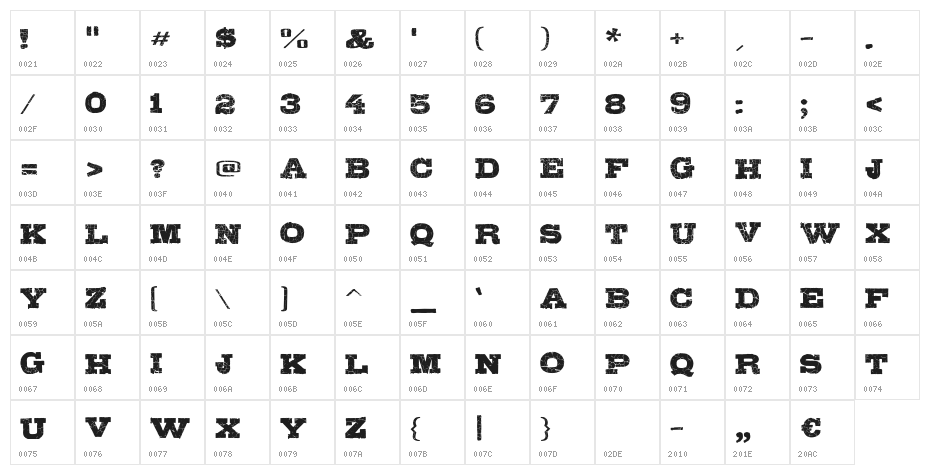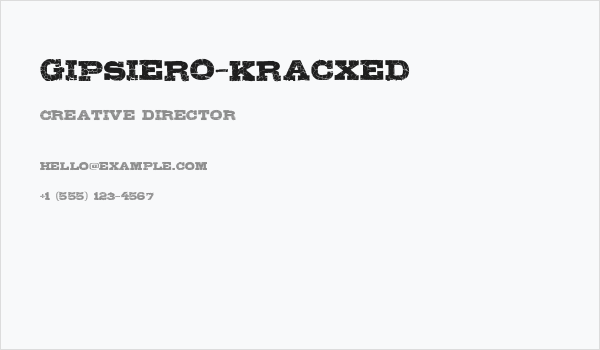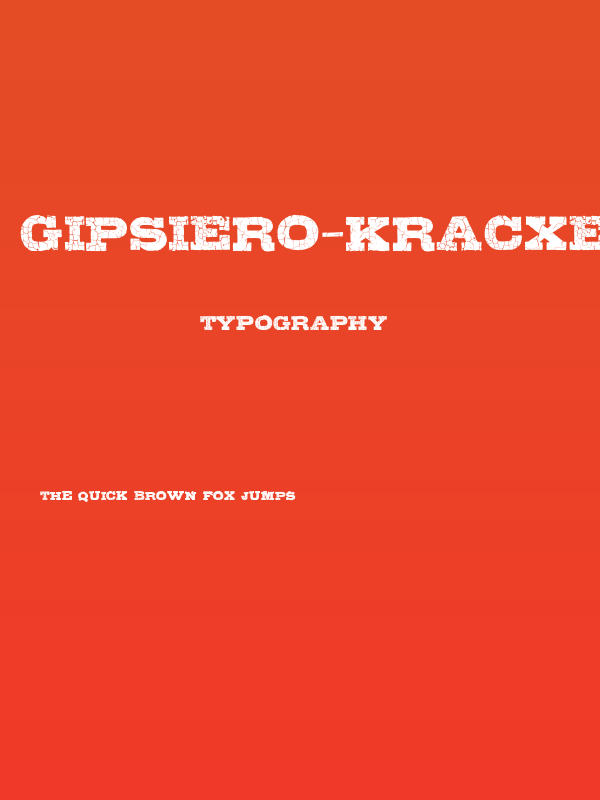
Gipsiero-Kracxed Font
Gipsiero-Kracxed Description
This font features a bold, distressed style with a cracked texture that gives it a rugged, vintage appearance. The uppercase letters are prominent and impactful, making it ideal for attention-grabbing designs. The numbers and special characters maintain the same distressed aesthetic, ensuring consistency across all text elements. The font's unique texture adds a layer of depth and character, making it suitable for projects that require a bold statement. Its design is reminiscent of worn-out signage or vintage posters, adding a nostalgic touch to any creative work.
| Proposed Projects | Ideal for vintage posters, album covers, branding for rustic or industrial-themed businesses, and any design needing a bold, textured statement. |